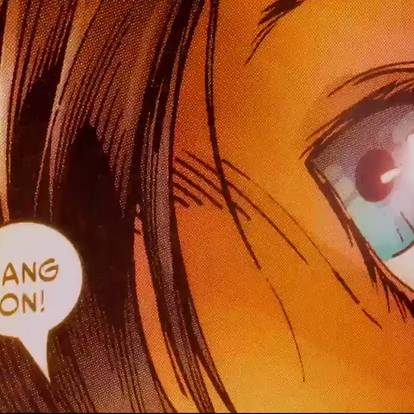
It may seem to be a detail, but the very recognizable typography is really part of the comics’ traditions. Its design is representative of the media’s and history of art evolution. Vox made a nice investigation at the heart of pop culture!